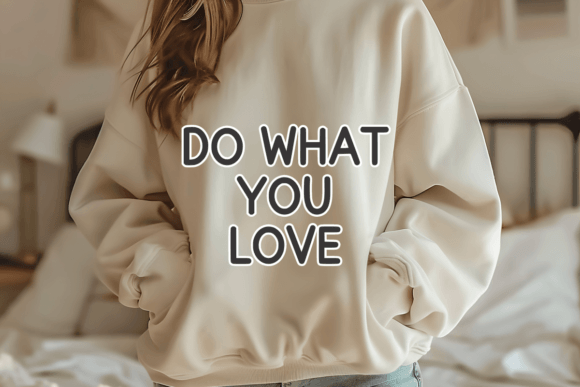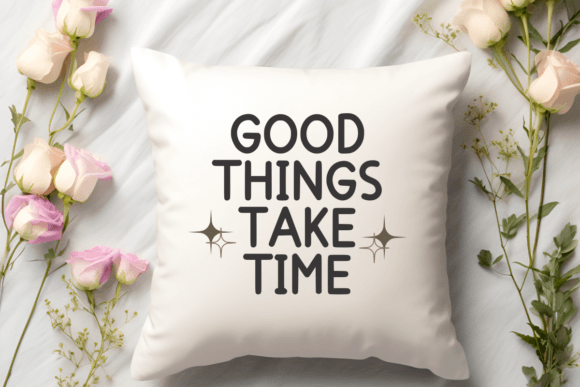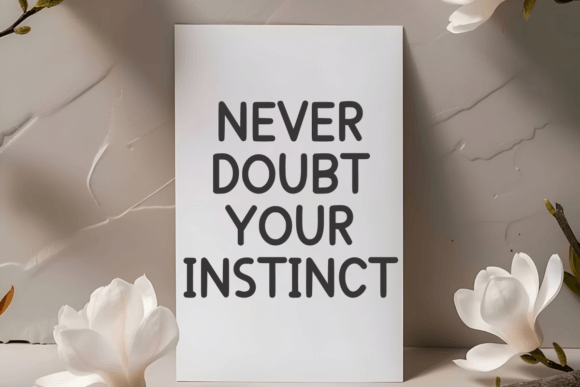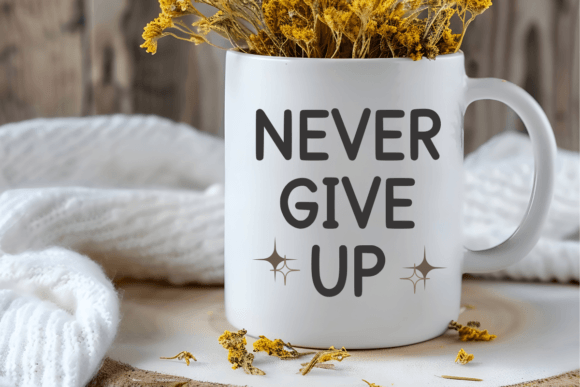
The Ever Green Font: A Charming Handwritten Style for Your Creative Projects
Have you ever been in the middle of a design project, and suddenly, you’re stuck on finding the perfect font? I recall a recent experience where I was working on a client’s wedding invitation, and my usual go-to fonts just weren’t cutting it. The design needed something fresh, yet personal. That’s when I stumbled upon the Ever Green font, and it instantly became the star of the show! In this article, we’ll dive into what makes Ever Green so special and how you can make the most of its charming handwritten style.
A Personal Touch for Your Designs
Ever Green is a delightful handwritten font crafted to add a personal touch to your projects. Whether you’re designing invitations, greeting cards, posters, or social media graphics, this font combines modern aesthetics with a cozy, handwritten feel that’s sure to captivate your audience. Its clear, legible strokes make it incredibly versatile, suitable for branding, packaging, and home decor projects.
An Honest Review of Ever Green
- ✨ Unique and engaging character that adds a personal touch to any design
- ✅ Clear and legible strokes, making it perfect for a wide range of projects
- ✅ Modern aesthetics combined with a cozy, handwritten style
- ✨ Versatile and easy to pair with other fonts
While Ever Green is an excellent font, there are a few minor quirks to be aware of:
- ⚠️ Some letters might require manual kerning for optimal spacing
- 🤔 Limited availability of extended language support
- Experiment with OpenType features, such as stylistic alternates, to add more personality to your text
The Backstory of Ever Green
The Ever Green font was designed with the intention of capturing the essence of handwritten notes in a digital age. Inspired by the beauty of nature and the warmth of personal letters, the designer aimed to create a font that feels both modern and cozy. The result is a charming, versatile font perfect for a wide range of creative projects.
Q: What makes Ever Green unique?
A: Ever Green combines modern aesthetics with a cozy, handwritten style, making it perfect for adding a personal touch to your designs.
Q: Can I use Ever Green for branding and packaging?
A: Absolutely! Ever Green’s clear, legible strokes make it versatile for branding, packaging, and various other projects.
Q: Does Ever Green support OpenType features?
A: Yes, Ever Green supports OpenType features, including stylistic alternates, glyphs, and ligatures, allowing you to add more personality to your text.